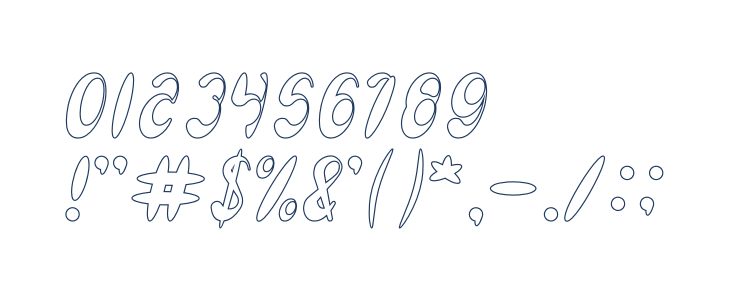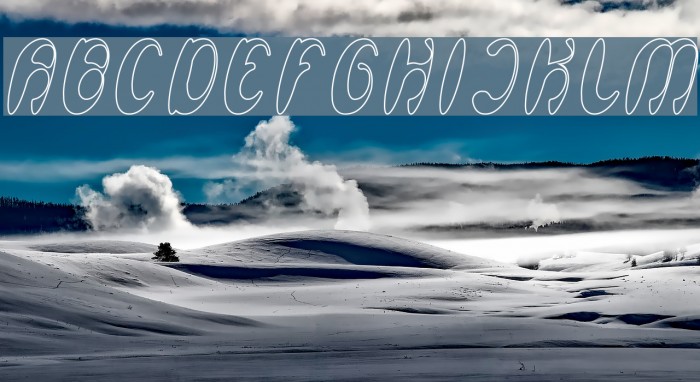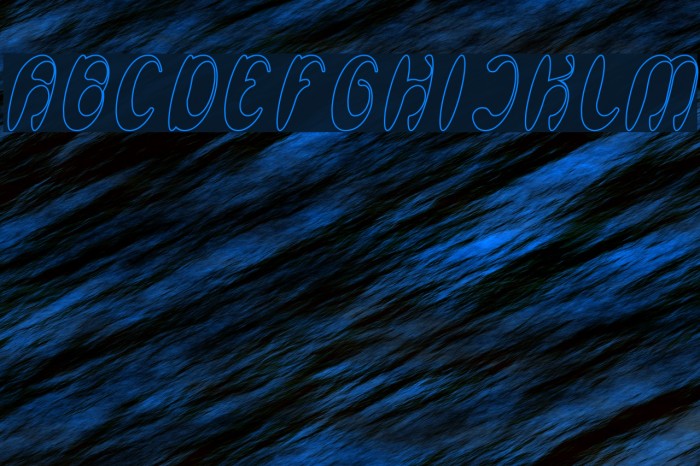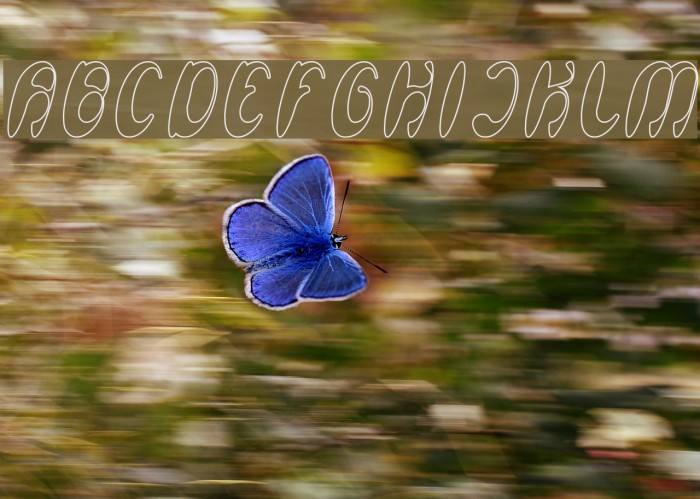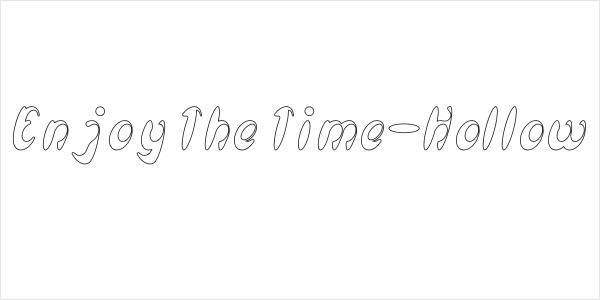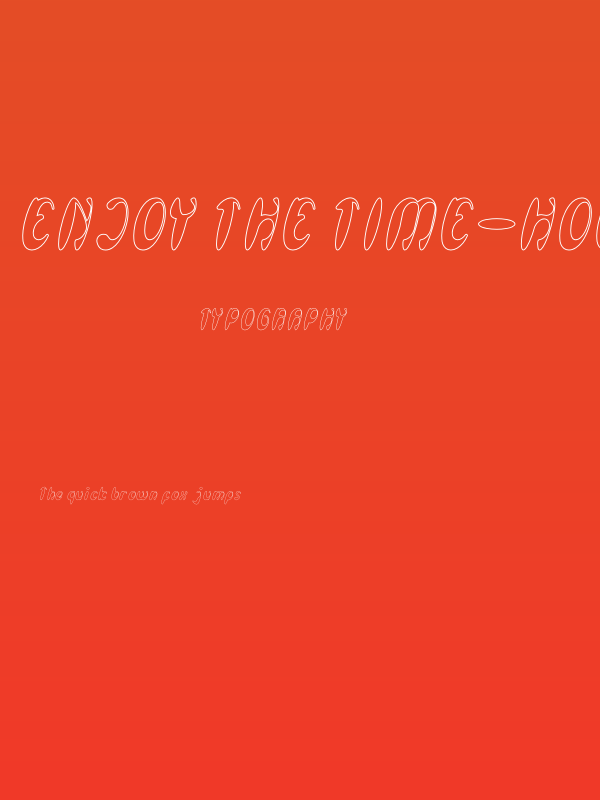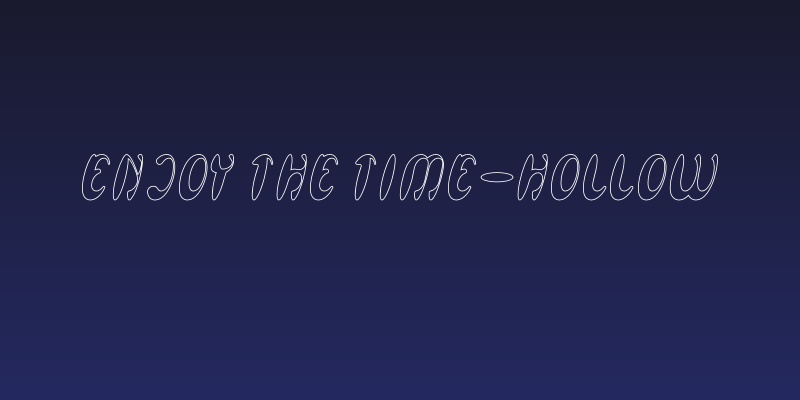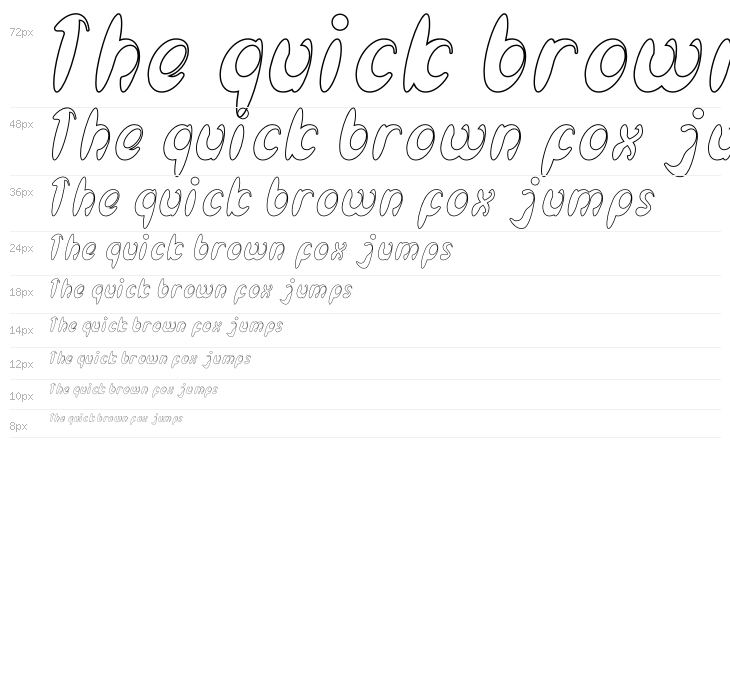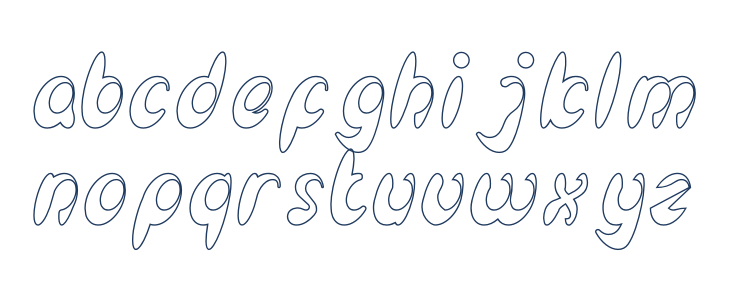
Enjoy The Time-Hollow Font
Enjoy The Time-Hollow Description
This font features a playful and whimsical design with hollow, bubble-like characters. The letters are rounded and have a consistent, flowing style that gives them a sense of movement and energy. The uppercase and lowercase letters maintain a uniform appearance, while the numbers and special characters complement the overall aesthetic. The hollow nature of the characters adds a unique dimension, making it stand out in creative projects. The font's design is both approachable and modern, suitable for a variety of uses where a light-hearted and engaging look is desired.
| Overall Style | Playful, Modern |
| Proposed Projects | Ideal for children's books, playful branding, greeting cards, and creative posters. |